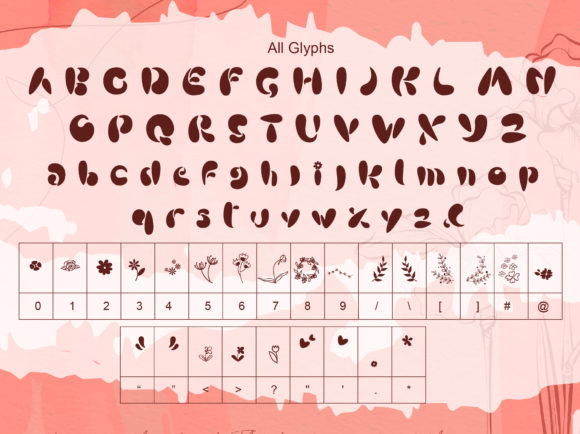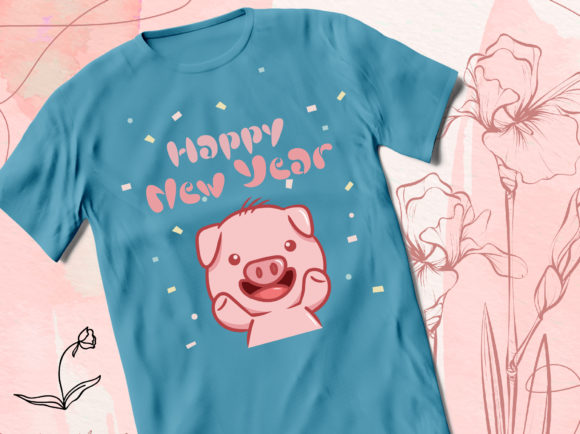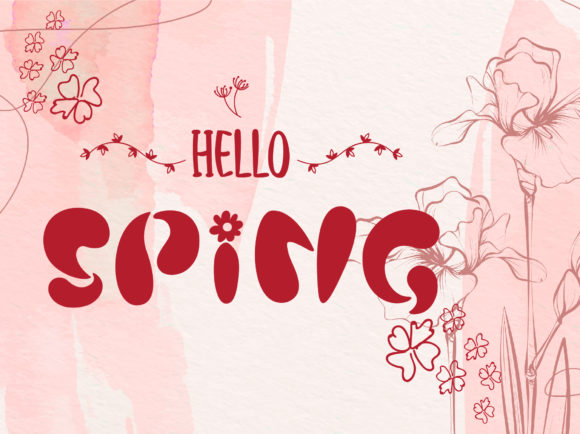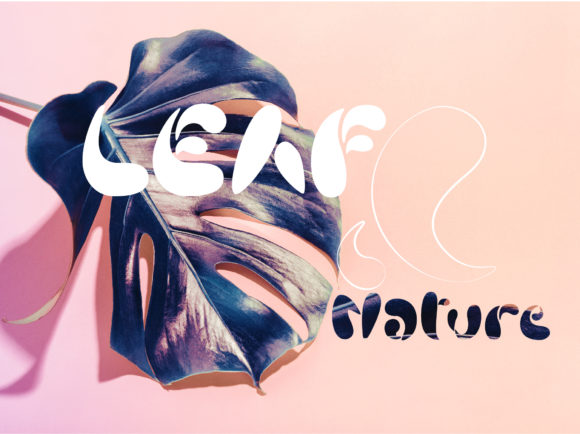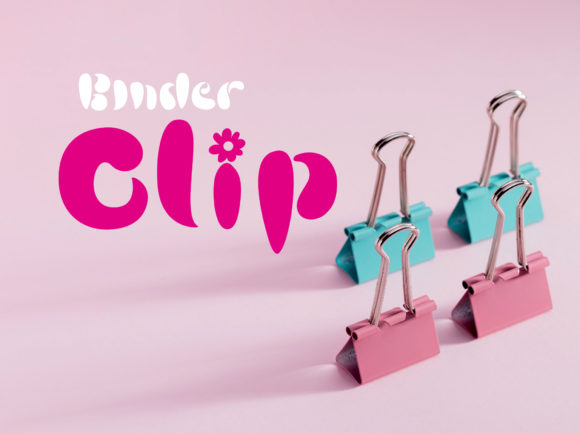
Introduction to Flower Text Effect Font
Remember that moment when you were brainstorming for a creative project and suddenly, a spark of inspiration hit you? You were searching for the perfect font to elevate your design, but nothing seemed to fit. You wanted something that would stand out, yet remain down-to-earth and easy to read. That’s when I discovered the Flower Text Effect Font – a game-changer for designers like you and me.
This charming display font is a treasure trove of possibilities, offering high-quality designs that can be used in various contexts, from busy backgrounds to standalone headlines. Its versatility makes it an invaluable resource for designers seeking to create unique and captivating visuals. With the Flower Text Effect Font, you can take your creative project to the next level, all while enjoying the convenience of a free download. Whether you’re working on a personal or professional project, this design resource is sure to impress.
Key Features of Flower Text Effect Font
- Unique, hand-drawn design with a floral theme, ideal for creative projects and designs.
- High-quality, vector-based font with transparent background, perfect for use on any background.
- Font size is scalable, allowing for easy customization to fit your design needs.
- Perfect for adding a touch of elegance and sophistication to your designs, from wedding invitations to branding materials.
Honest Review: Flower Text Effect Font
I recently came across the Flower Text Effect Font and was excited to give it a try in my creative project. I was pleasantly surprised by the high quality of this font, which is available as a free download. The transparent background makes it easy to use in a variety of design scenarios.
- Unique and creative design that can add a personal touch to any project
- Transparent background allows for easy layering and customization
- Some letters may require adjustments to fit specific design layouts
- The font may not be suitable for use in smaller text sizes due to its intricate design
Overall, I was impressed with the Flower Text Effect Font’s potential to elevate my design projects. While it may have some limitations, its unique design and free availability make it a valuable resource for designers looking to add some creativity to their work.
To get the most out of the Flower Text Effect Font, try combining it with other design resources, such as graphics and illustrations. Experiment with different font sizes, colors, and alignments to create a unique and eye-catching design. This font is perfect for creative projects that require a high-quality, free download with a transparent background.
Is the Flower Text Effect Font suitable for large-scale designs?
Yes, the Flower Text Effect Font is designed to be scalable and suitable for large-scale designs. The high-quality SVG format ensures that the font remains crisp and clear even at larger sizes, making it an ideal design resource for various creative projects, including billboards, posters, and other large-format designs.